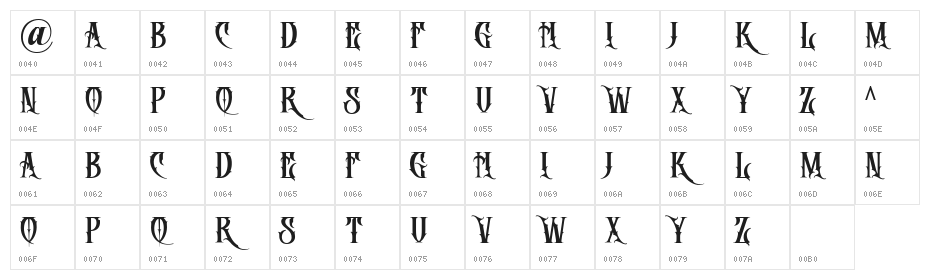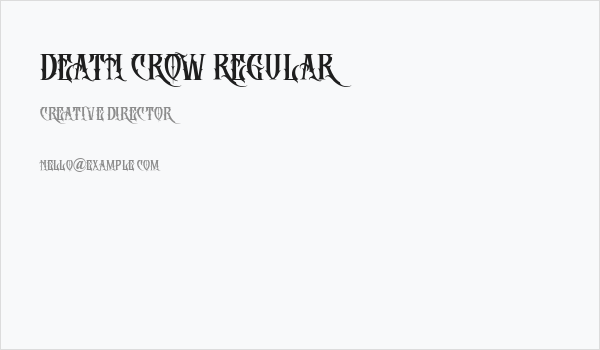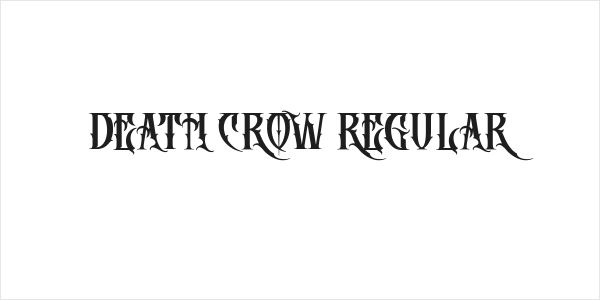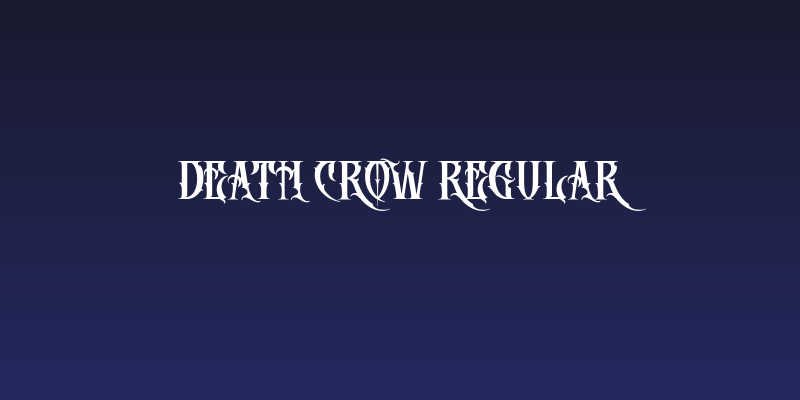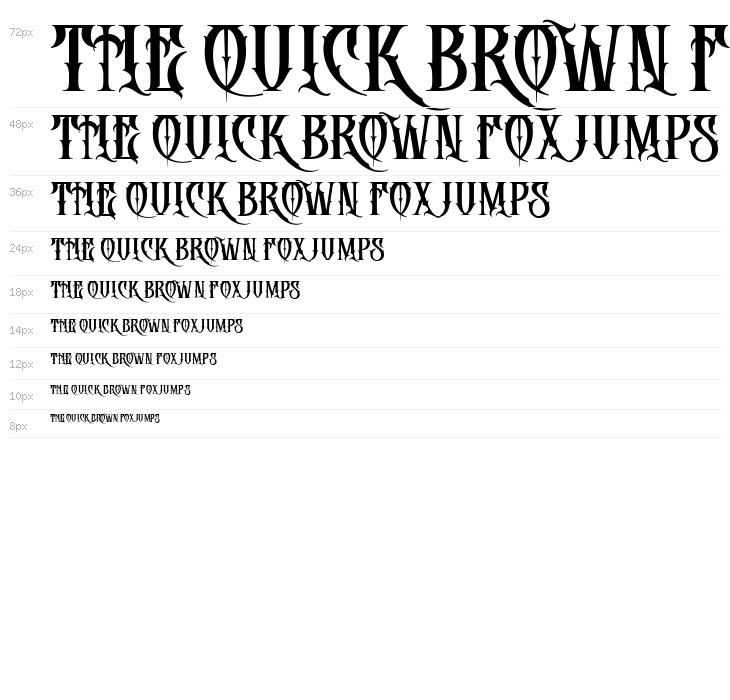
DEATH CROW Regular Font
DEATH CROW Regular Description
This font features a bold and dramatic design with sharp, pointed serifs and intricate detailing. The characters are highly stylized, with a gothic influence that gives them an edgy and intense appearance. The strokes are thick and consistent, creating a strong visual impact. The overall design is ornate, with decorative elements that add a sense of complexity and flair. The font's unique style makes it stand out, suitable for projects that require a bold and distinctive look.
| Overall Style | Gothic, Decorative |
| Proposed Projects | Ideal for album covers, posters, branding for edgy or alternative products, and any design needing a dramatic flair. |